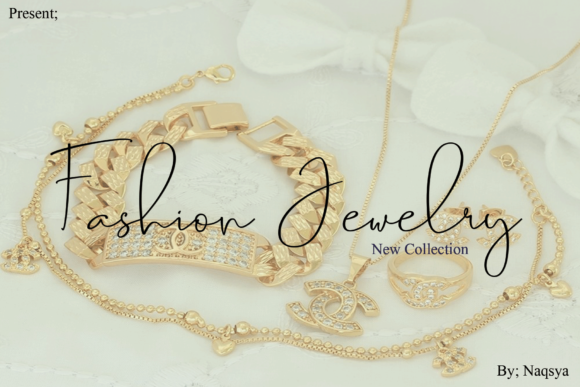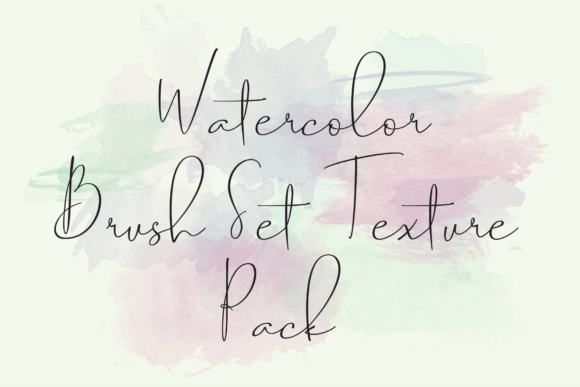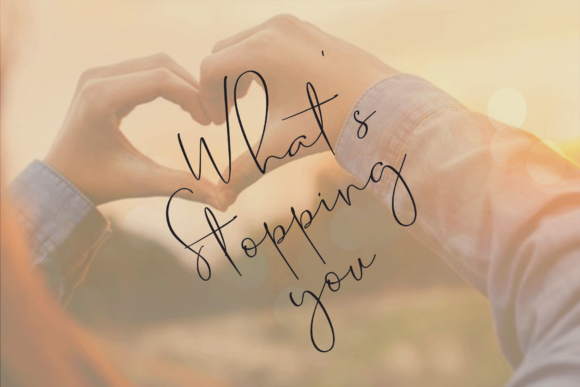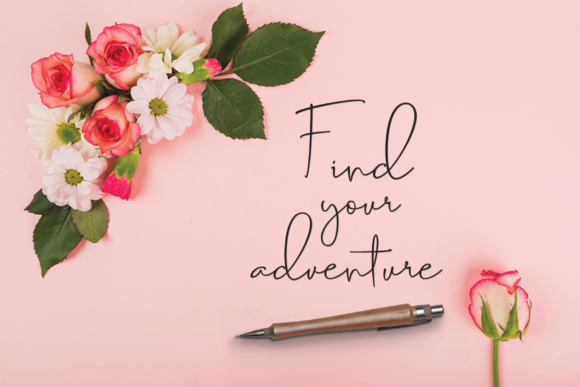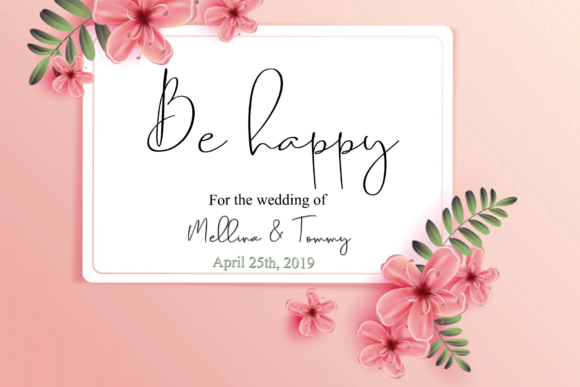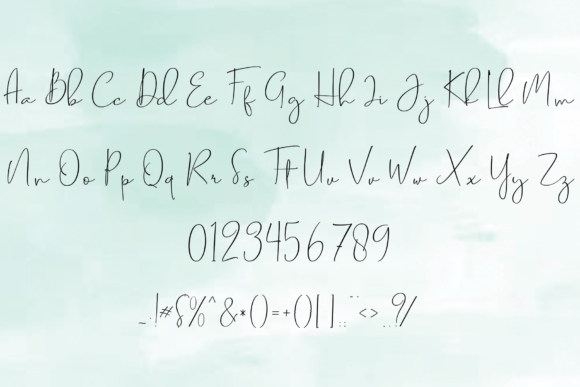
Introduction to Berliant Font Font
Fonts play a crucial role in design, and the Berliant Font font is a typeface that brings both character and versatility to any project. Whether you’re working on a branding project, a website, or a print design, the Berliant Font font offers a unique style that can elevate your work.
Berliant is a modern typeface designed by real handwriting.
Great for a variety of design projects .
Key Features of Berliant Font Font
Why Choose Berliant Font Font?
The Berliant Font font is more than just a typeface – it’s a design tool that helps you communicate your message with style and clarity. Its unique character set and versatile design make it suitable for a wide range of applications, from elegant invitations to bold headlines.
With its carefully crafted letterforms and balanced proportions, the Berliant Font font ensures readability and visual appeal across all mediums.
What makes Berliant Font font special?
The Berliant Font font stands out with its unique design, exceptional readability, and versatility across various design applications.